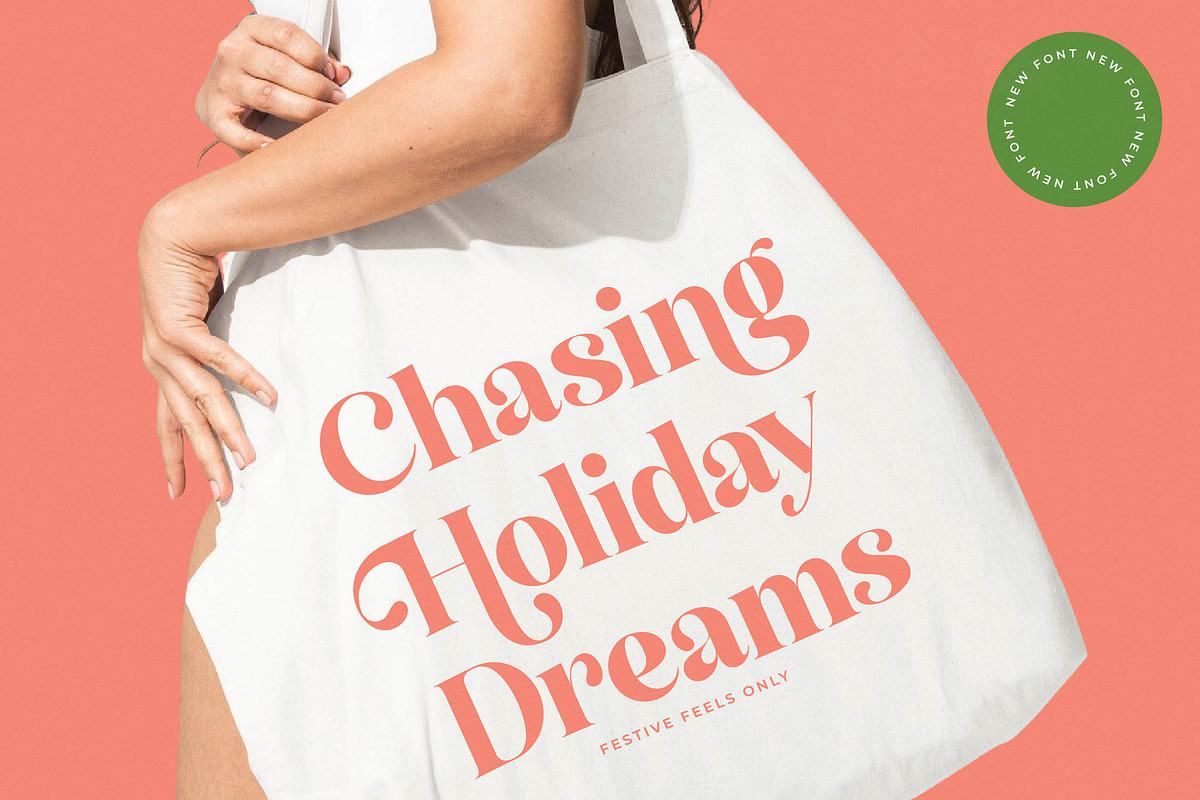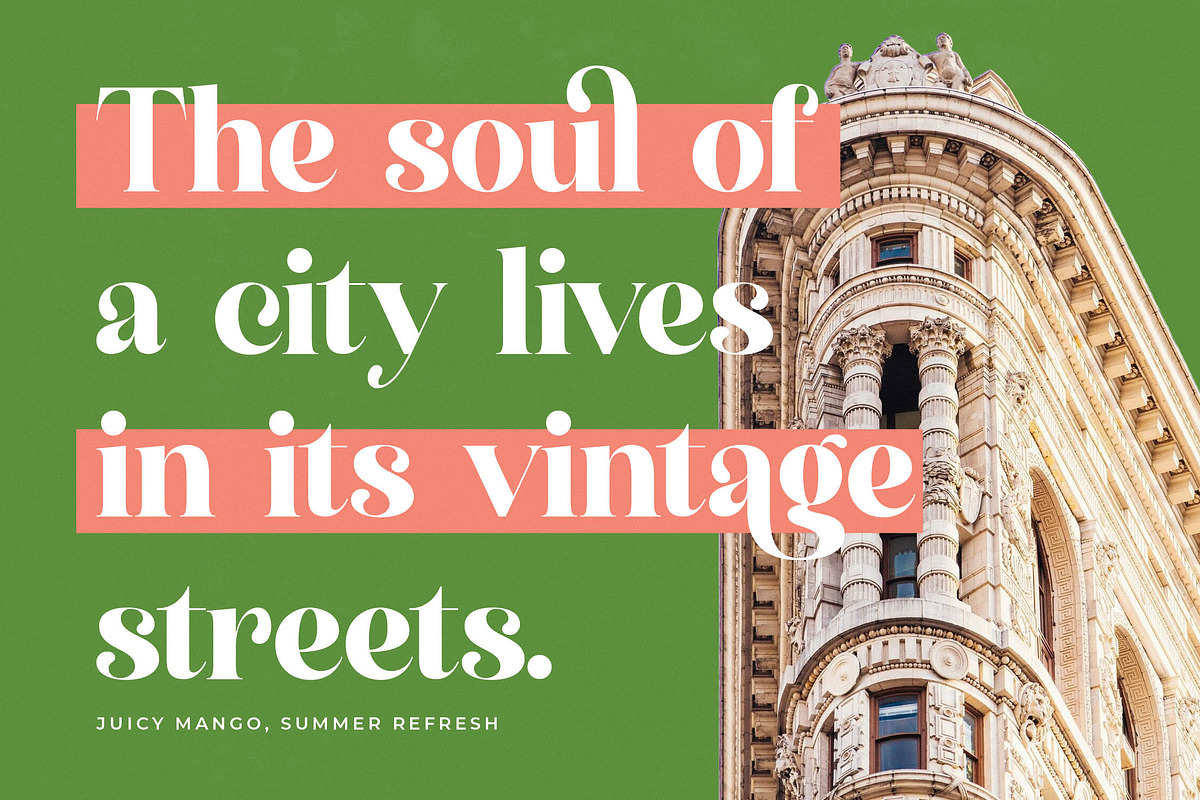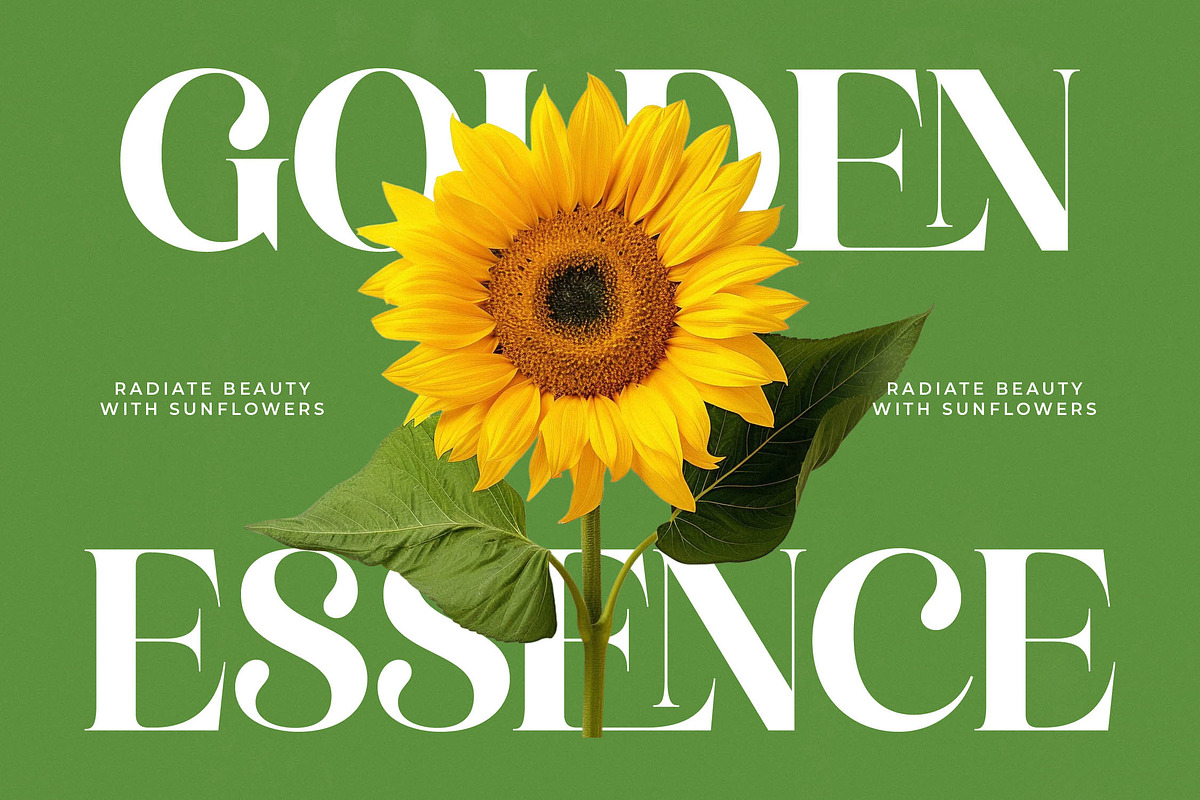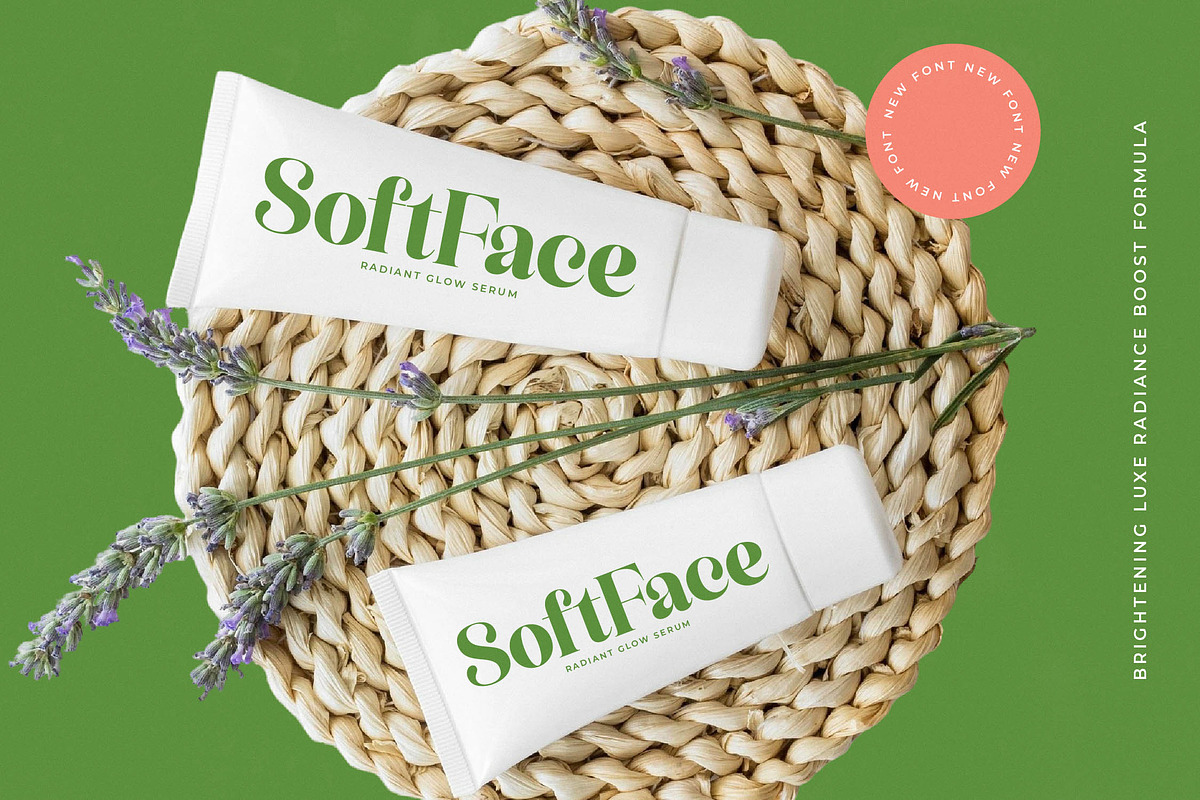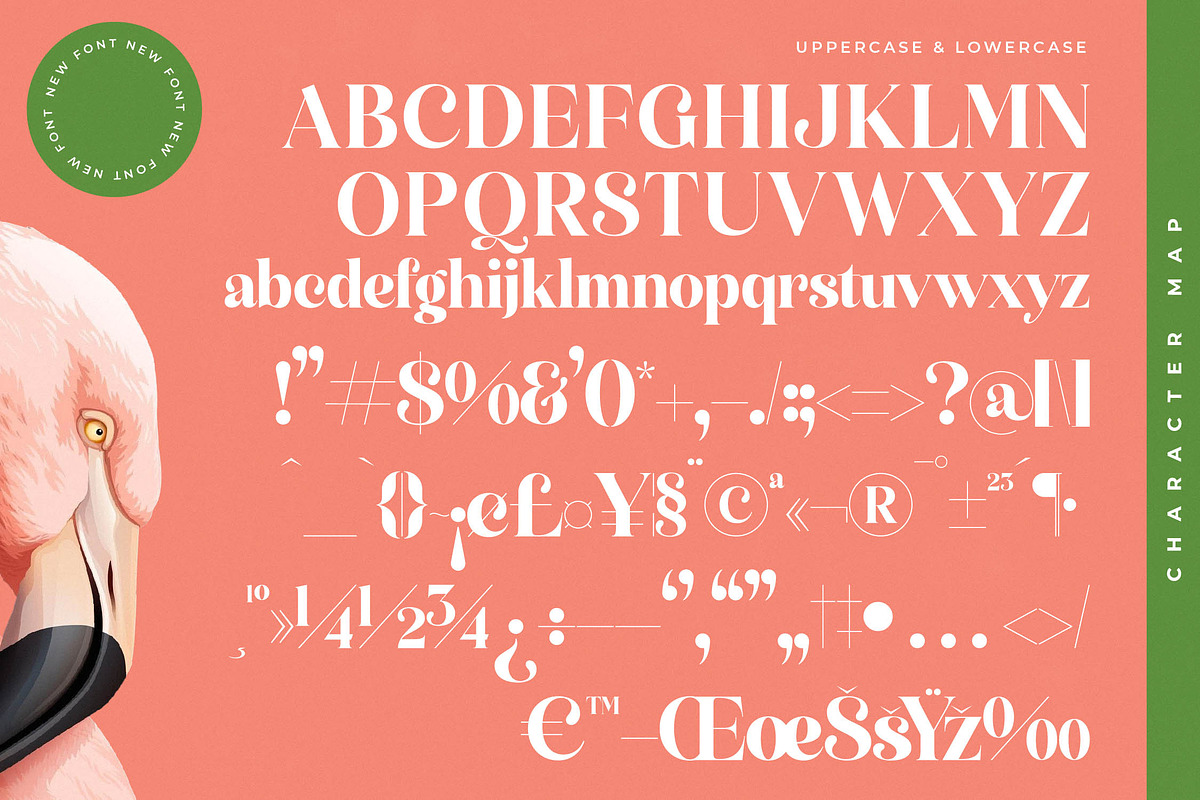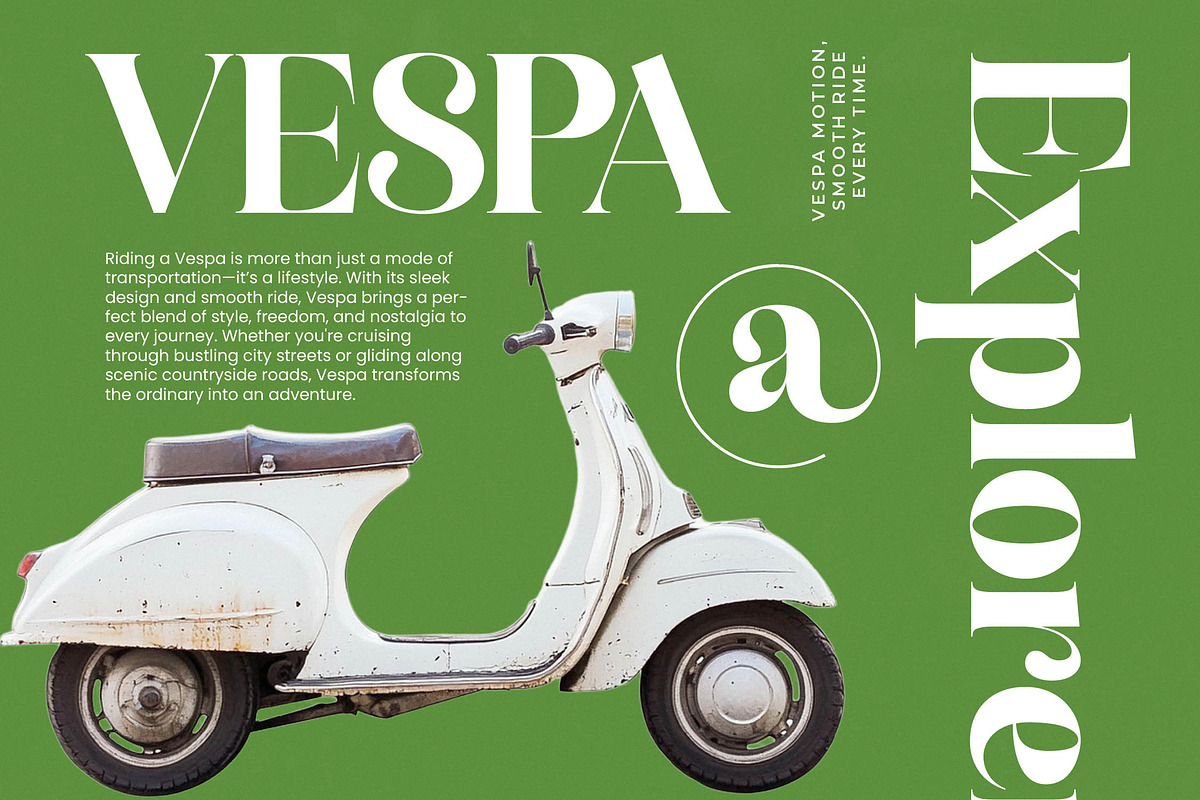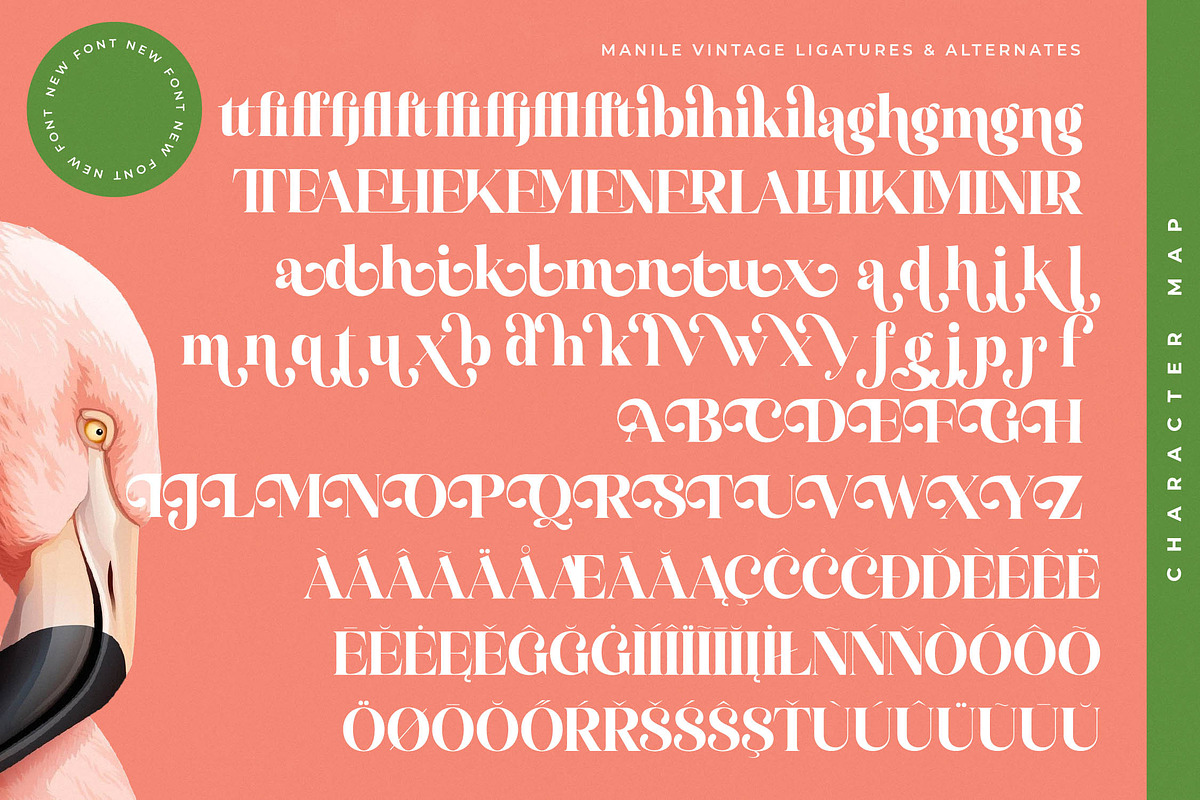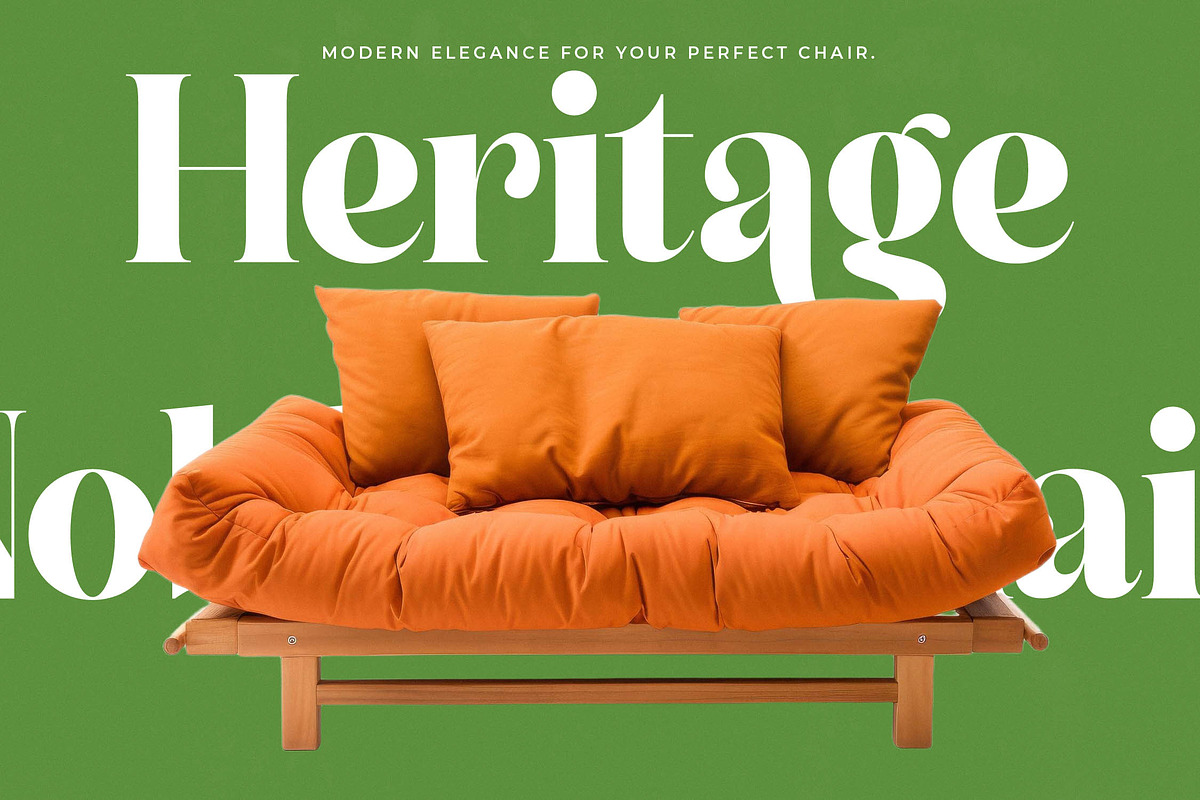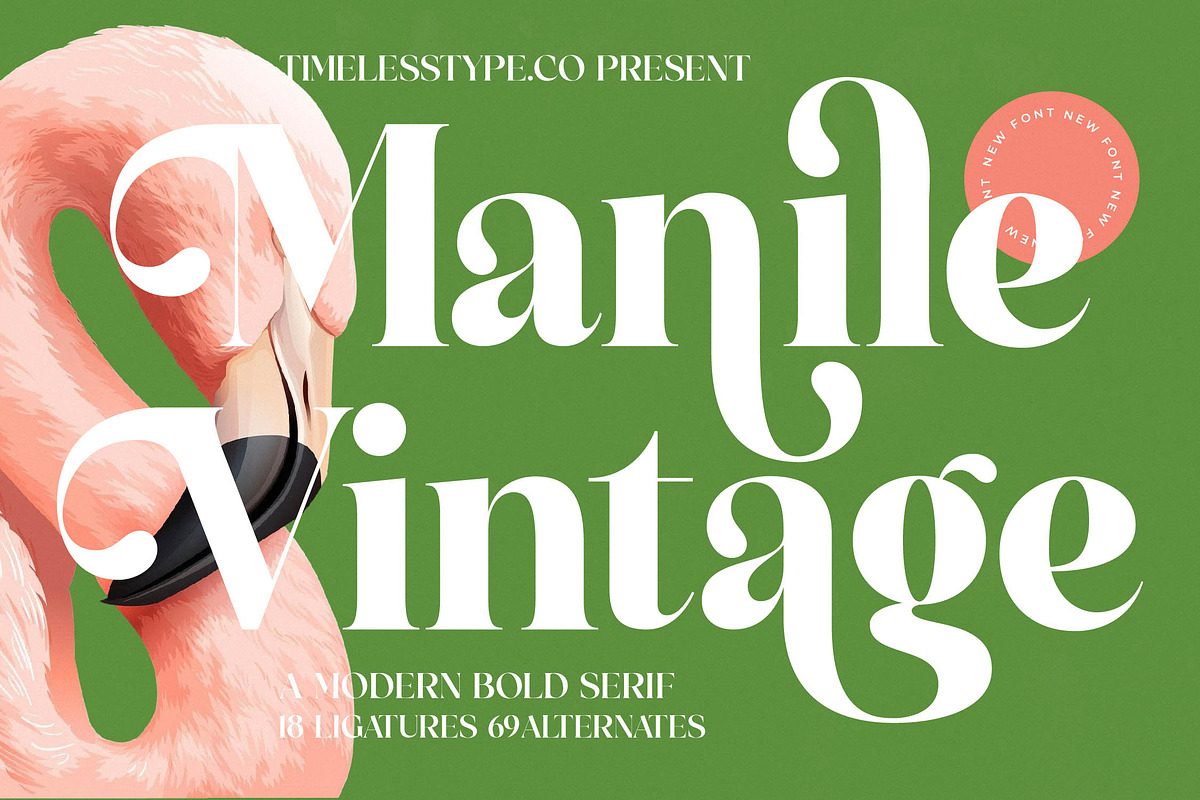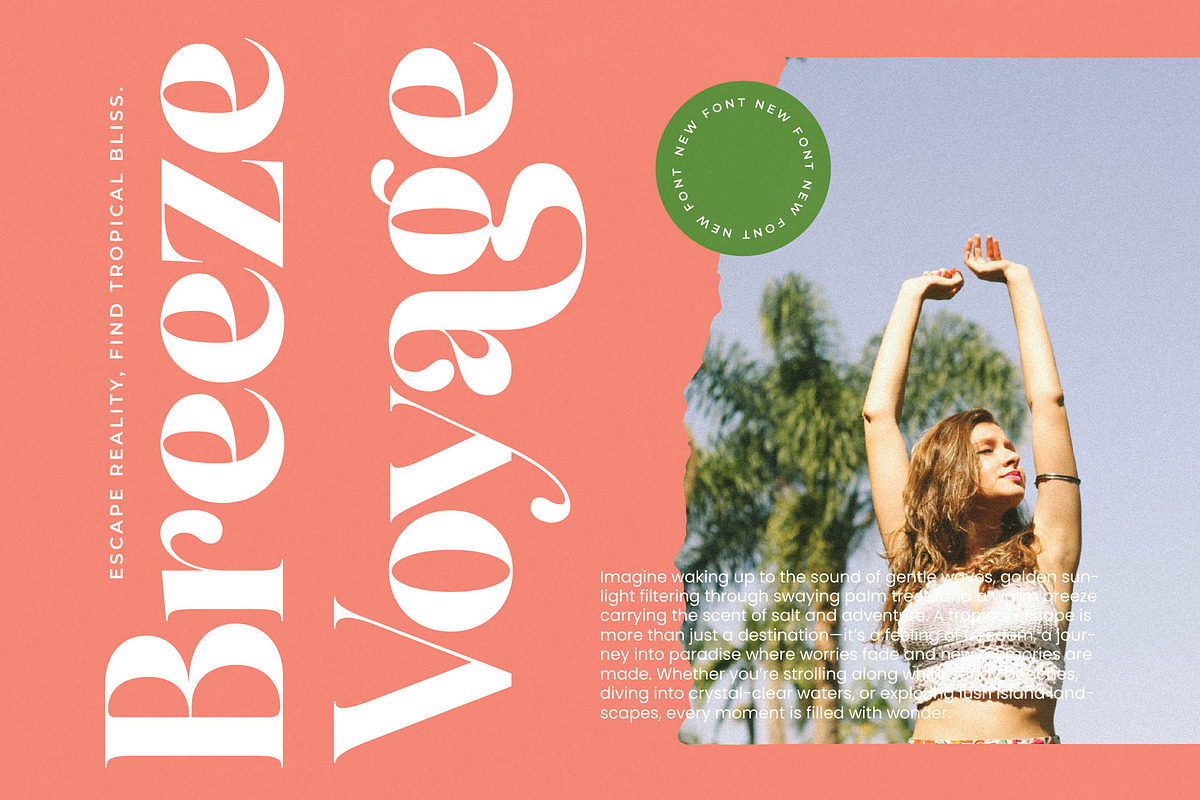
Manile Vintage Modern Bold Serif
Manile Vintage captures the essence of sophisticated charm, blending timeless silhouettes with a bold, contemporary spirit that demands attention. It is a typeface designed to breathe life and luxury into every creative project it touches.
Inspired by the effortless grace of the tropics and the refined aesthetics of high-end fashion, this font evokes an atmosphere of sun-drenched elegance. Its curves are reminiscent of classic editorial layouts found in the world's most prestigious style magazines.
This modern serif display is the ultimate choice for creators seeking luxury typography with a distinct high-contrast serif feel. Its sharp lines and rounded terminals provide an editorial font quality that ensures a powerful branding impact across all media.
Aligning perfectly with the current modern serif trend, this typeface serves as a cornerstone for editorial display fonts that favor personality. It represents the pinnacle of character-driven typography, moving beyond simple utility to become a central design element.
From high-end logo design to cohesive branding systems, this font excels in editorial spreads and premium packaging. It is equally at home in romantic wedding stationery or avant-garde fashion campaigns, providing versatility without sacrificing style.
Unlock creative possibilities with a rich set of ligatures and unique alternates that allow for custom-tailored layouts. The inclusion of decorative swashes and full multilingual support ensures that these international characters can serve a global audience with ease.
- Ligature 18 Alternate 69